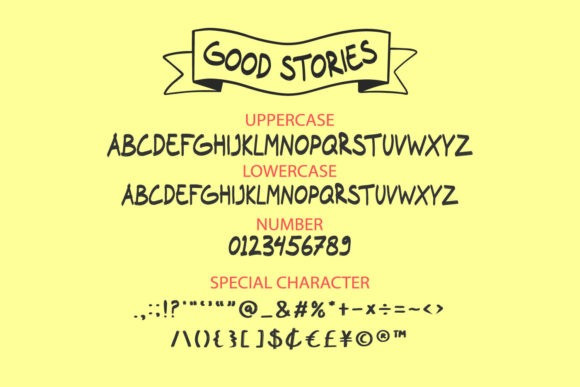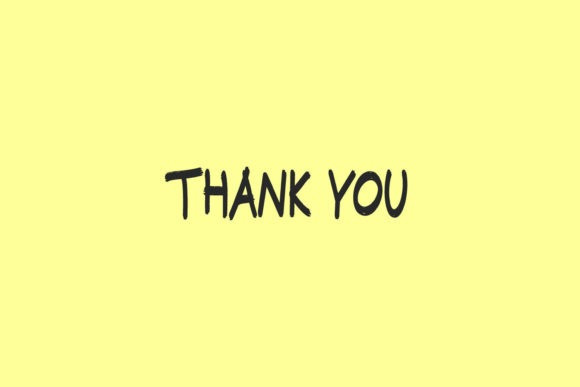
Good Stories Display Font
Good Stories is a cool and brushed display font. Whether you’re using it for crafting, digital designing, presentations or greeting cards making, it’s perfect!